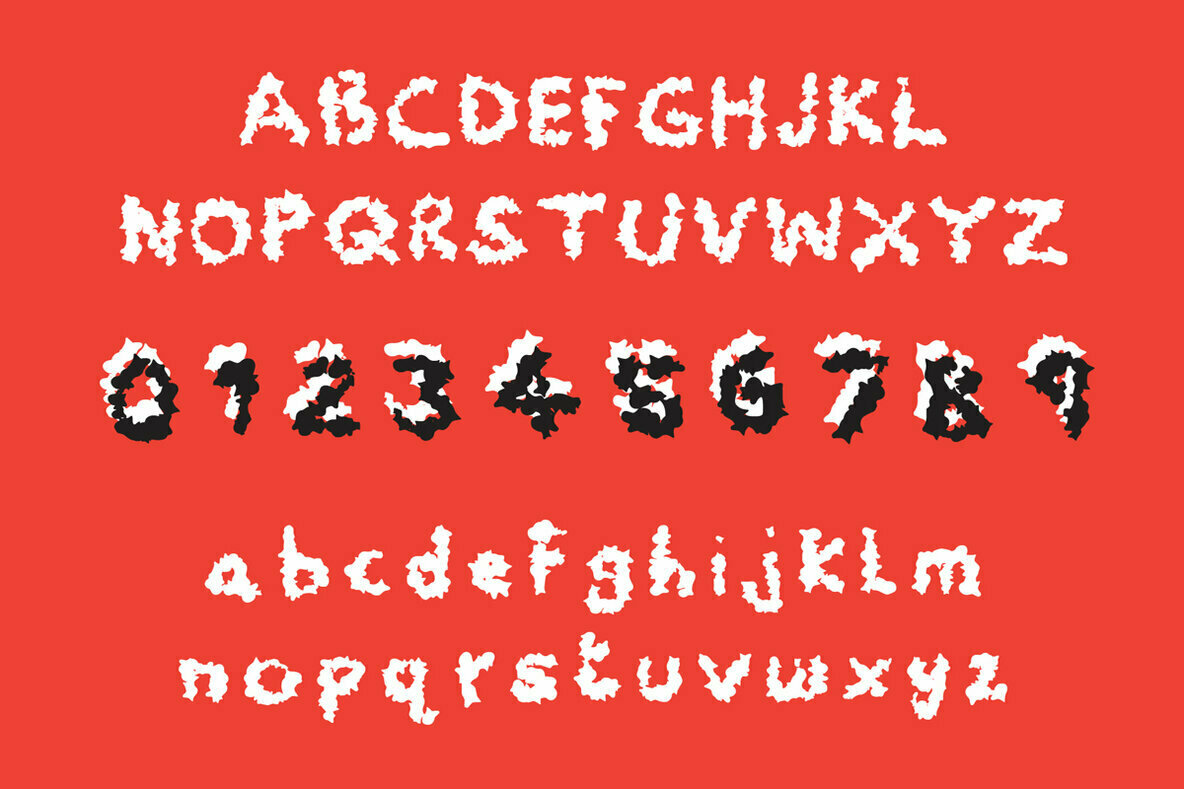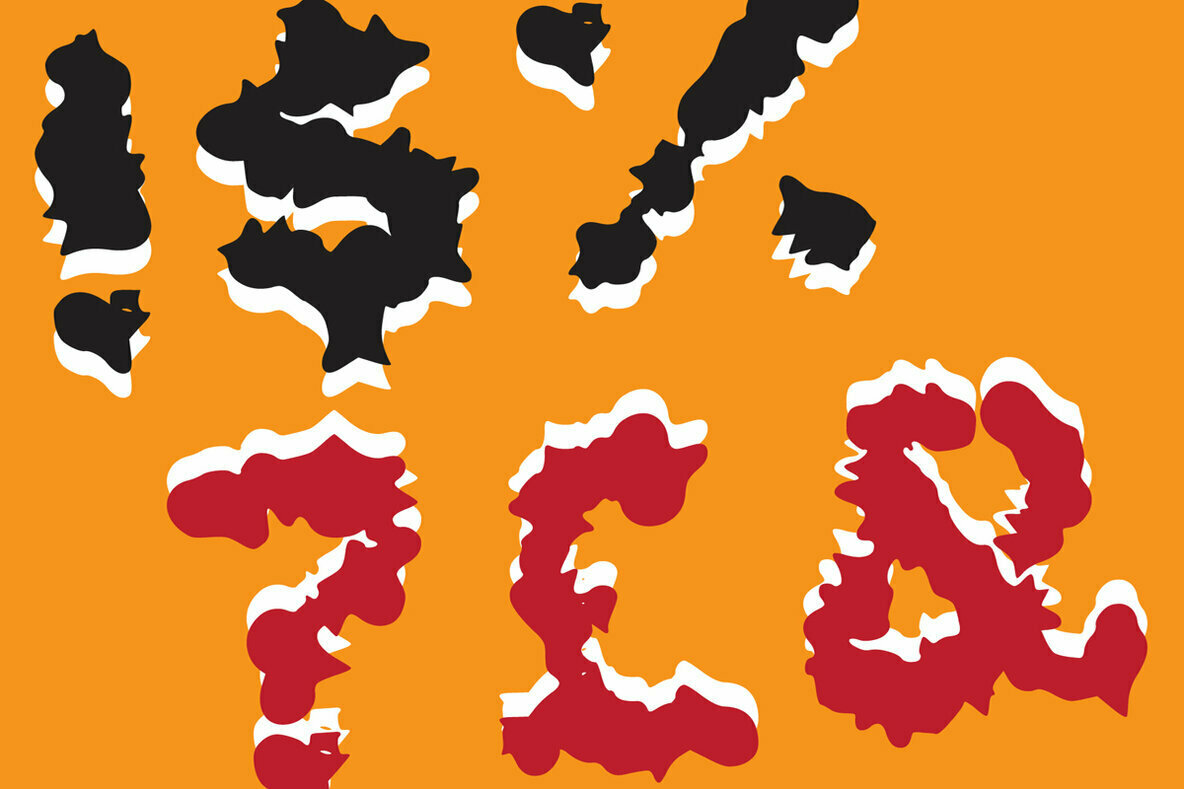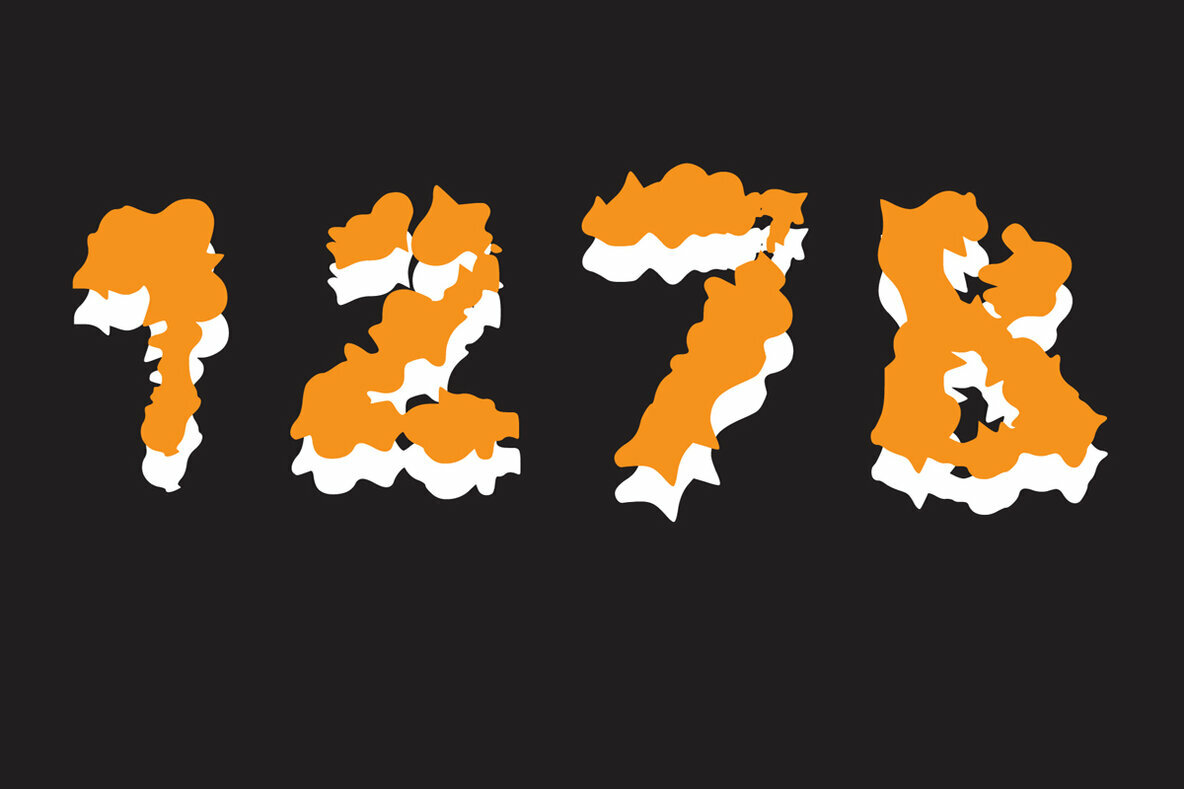
Paint Me Bad Font
Paint Me Bad
Paint Me Bad is a brush display font. Paint Me Bad will look outstanding in any context, whether it’s being used on busy backgrounds or as a standalone headline!